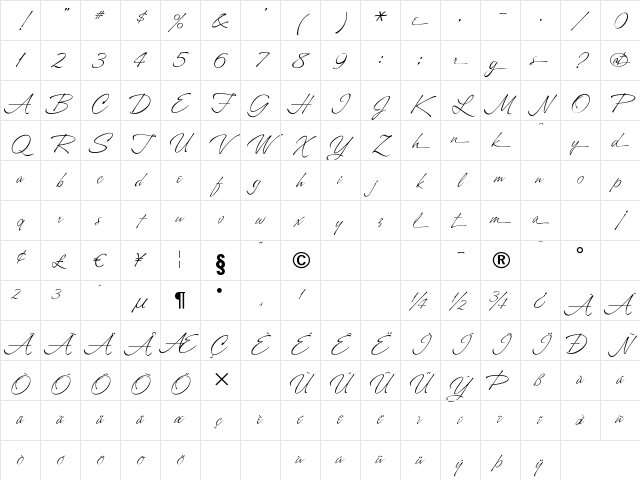
A&S Heartbeat Regular
Foundry: SIGNFONTS/Art&Sign Studio
Designer: Steve Contreras
Design Context for A&S Heartbeat
A&S Heartbeat is a composed and adaptable typeface that performs quietly and consistently across a wide range of design contexts.
Pro Tip: Use A&S Heartbeat in both headline and body roles to test its range before committing to a single application.